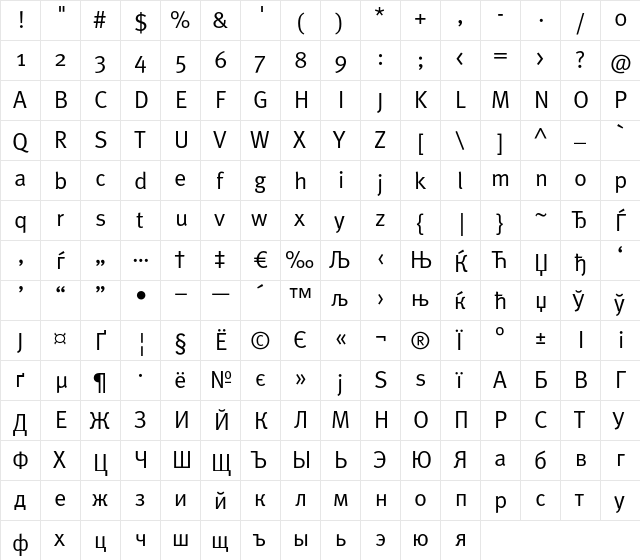
MetaNormalCyr-Roman Regular Font Preview
MetaNormalCyr-Roman Regular
Design Context for MetaNormalCyr-Roman Typeface
MetaNormalCyr-Roman takes a measured approach to typography — its balanced proportions and neutral character make it a reliable workhorse for both digital and print work.